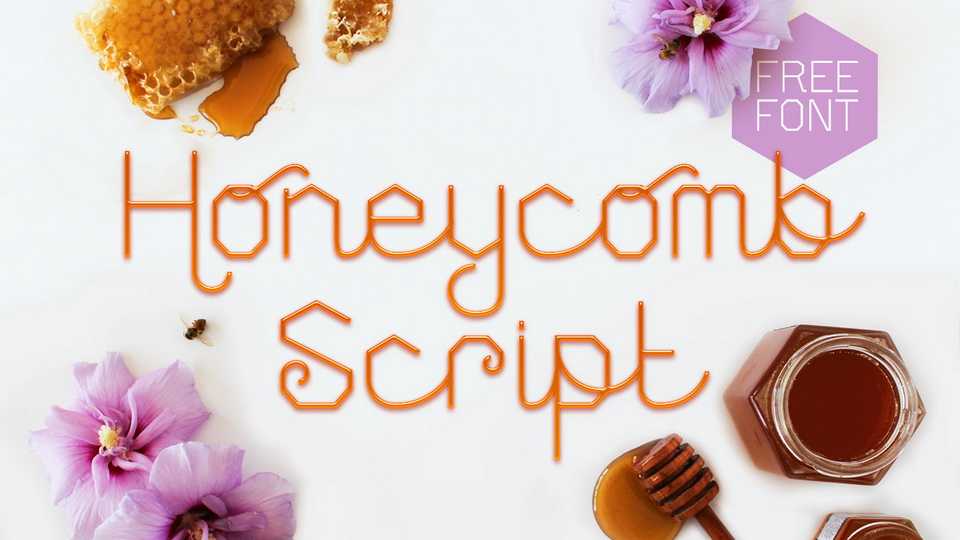
Download Honeycomb Script typeface, a decorative font family of 8 fonts derived from nature’s splendor and based off of organic and geometric wonders of the honeycomb.
Designer: Katrina Sutton